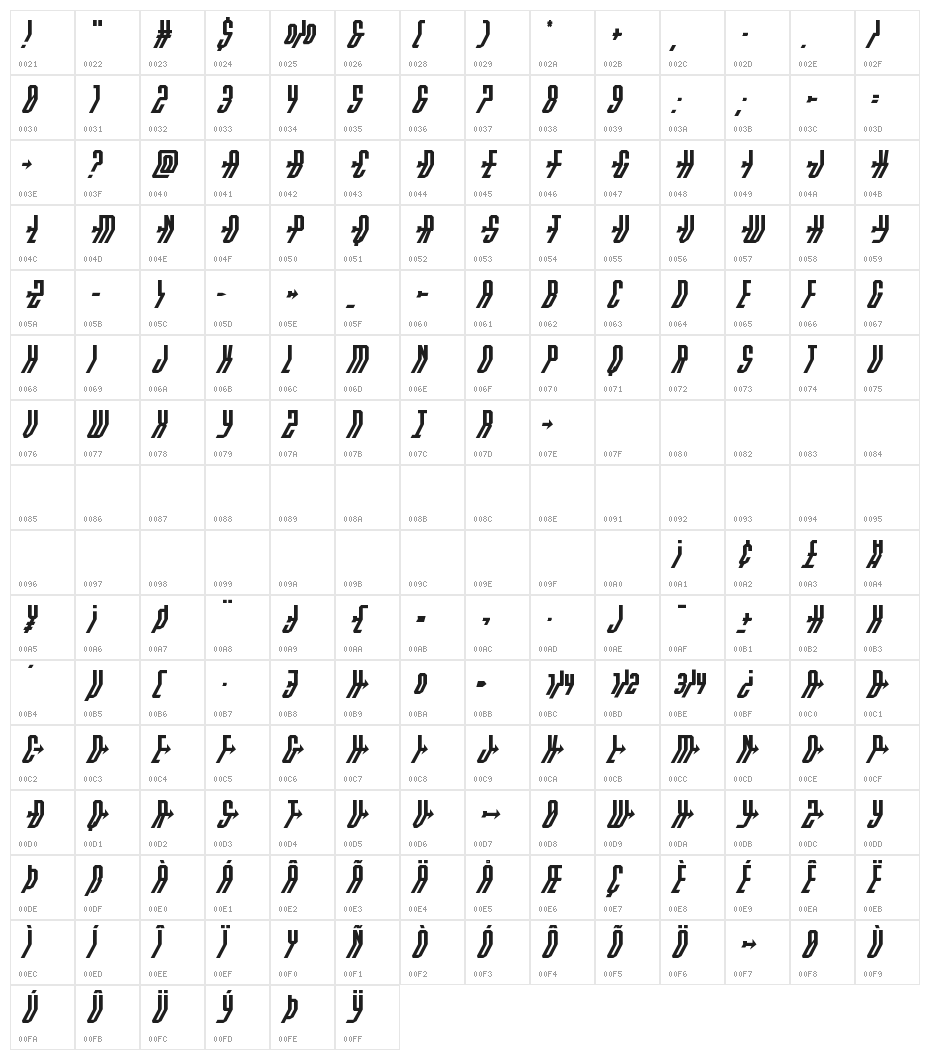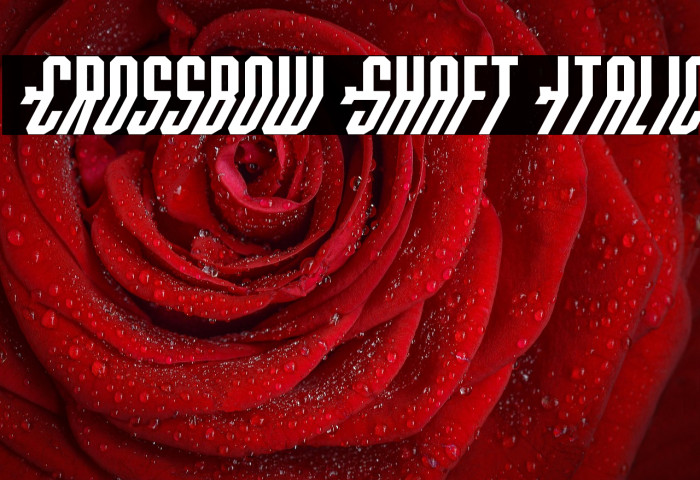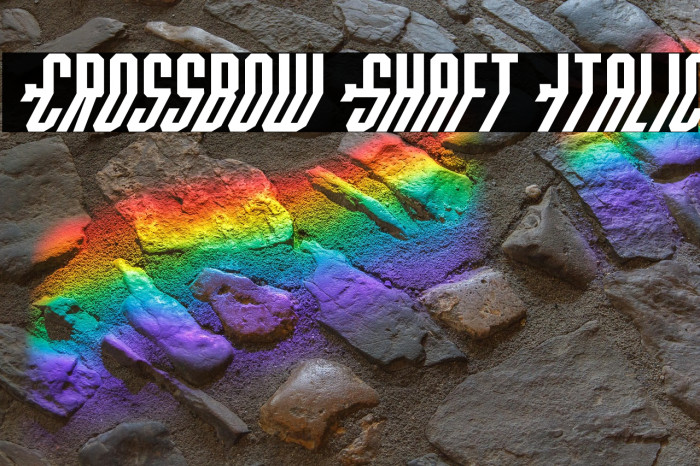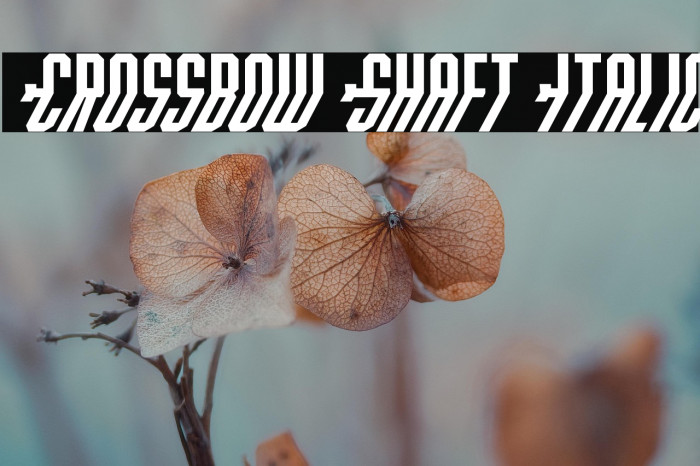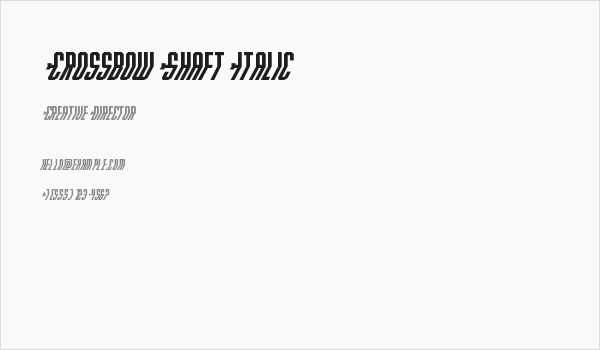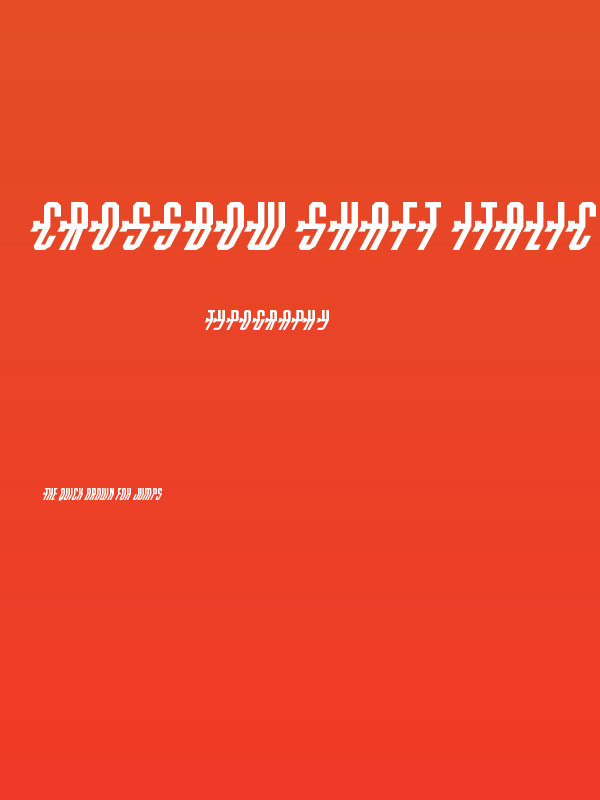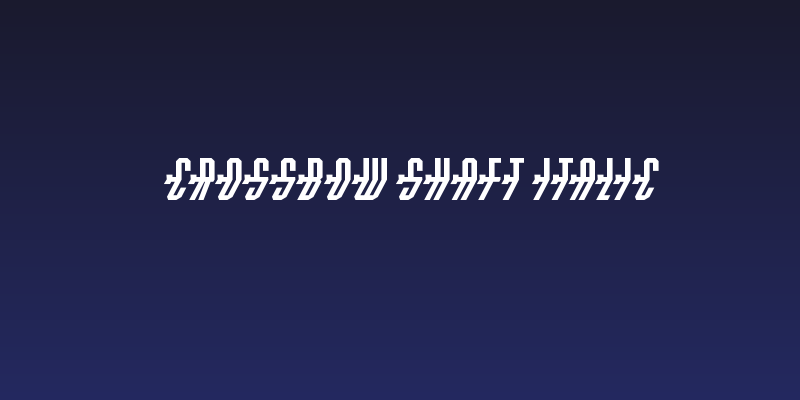
Crossbow Shaft Italic Font
Crossbow Shaft Italic Description
This font features a bold and dynamic style with a distinct italic slant, giving it a sense of motion and energy. The characters are constructed with sharp, angular lines and a consistent stroke weight, creating a cohesive and impactful appearance. The uppercase and lowercase letters maintain a uniform height, enhancing readability while preserving the font's unique aesthetic. The numerals and special characters are designed to match the overall style, ensuring a seamless integration across different types of content. This font's strong geometric shapes and italicized form make it ideal for projects that require a modern and assertive look.